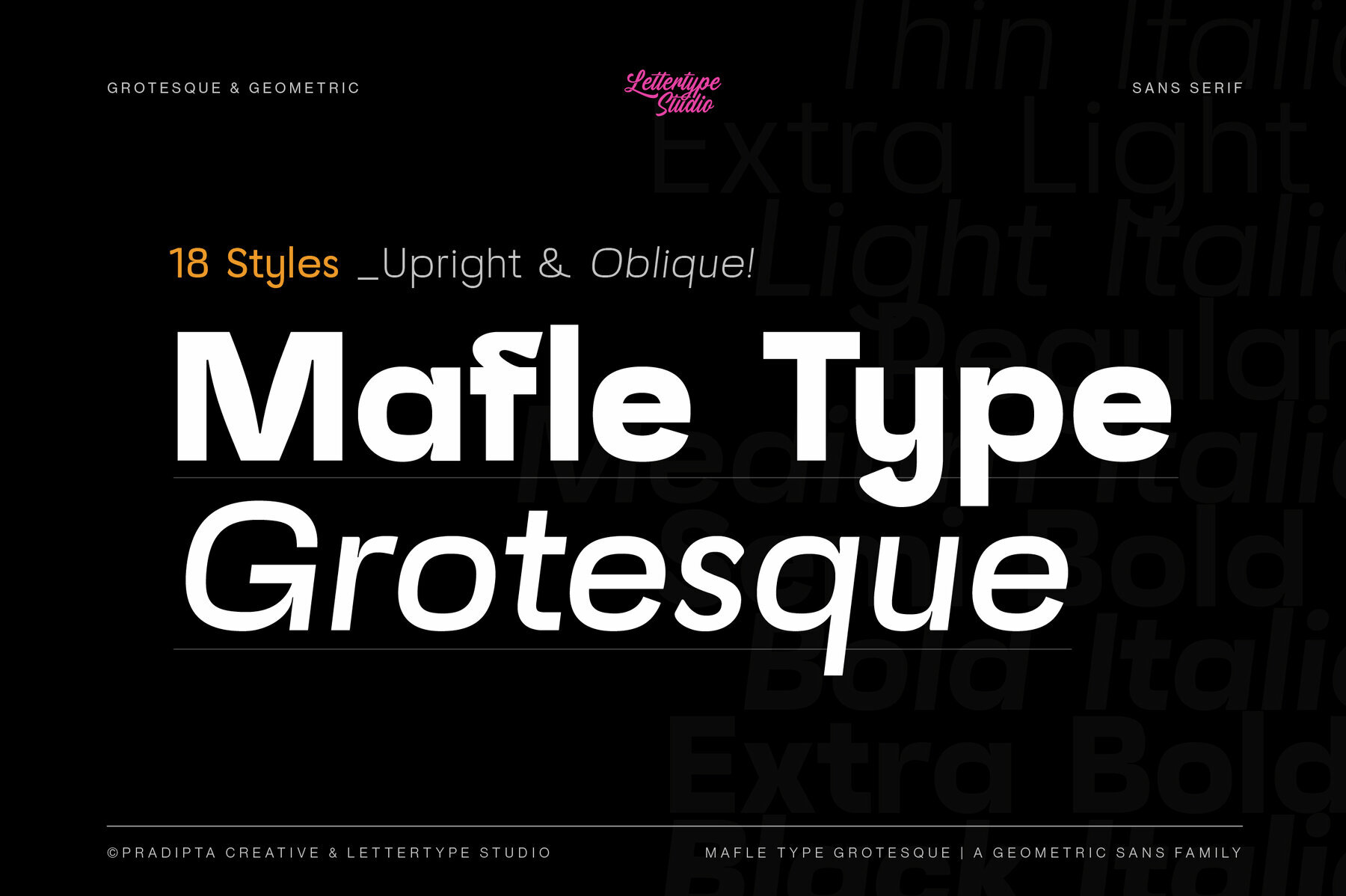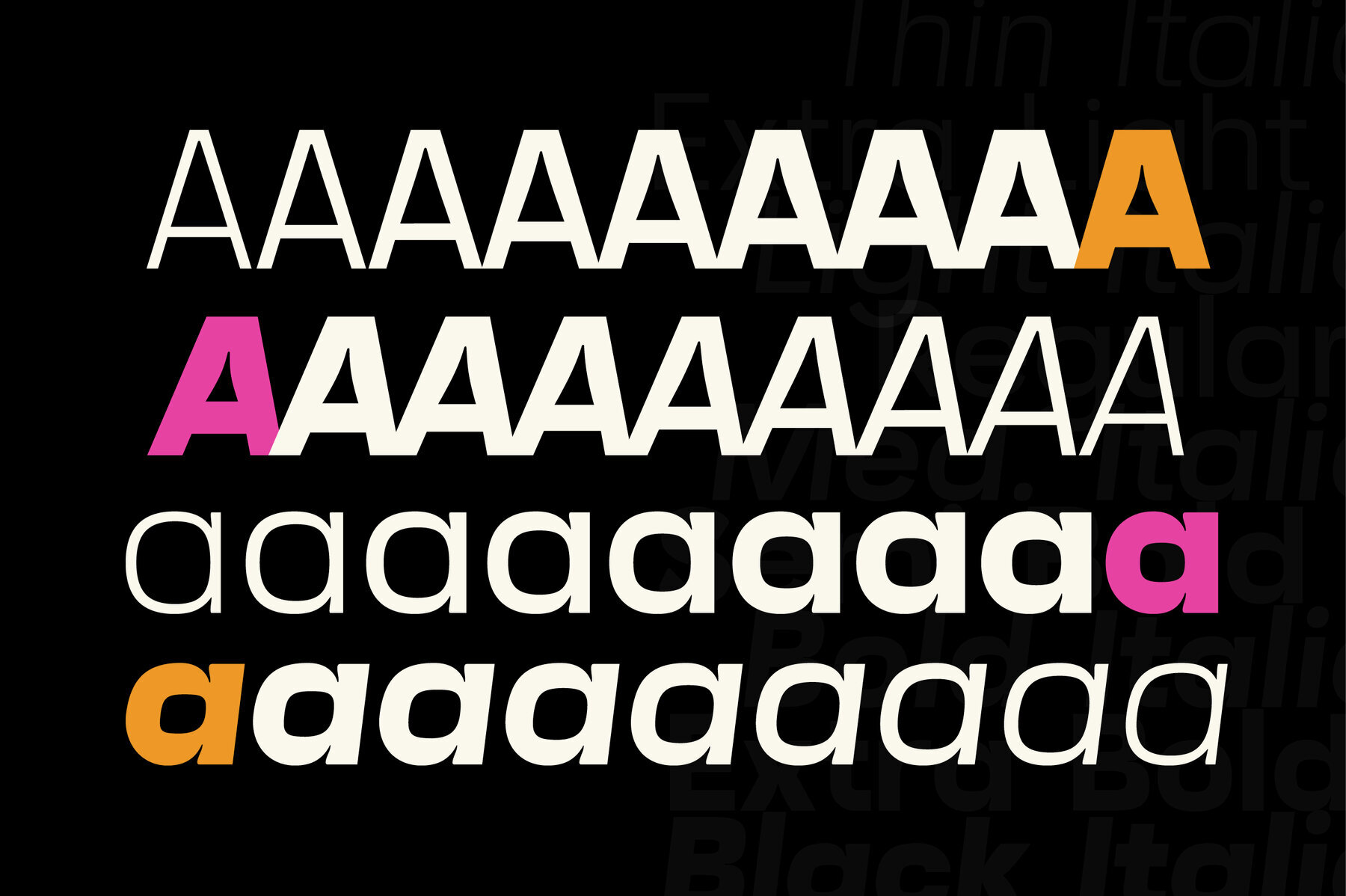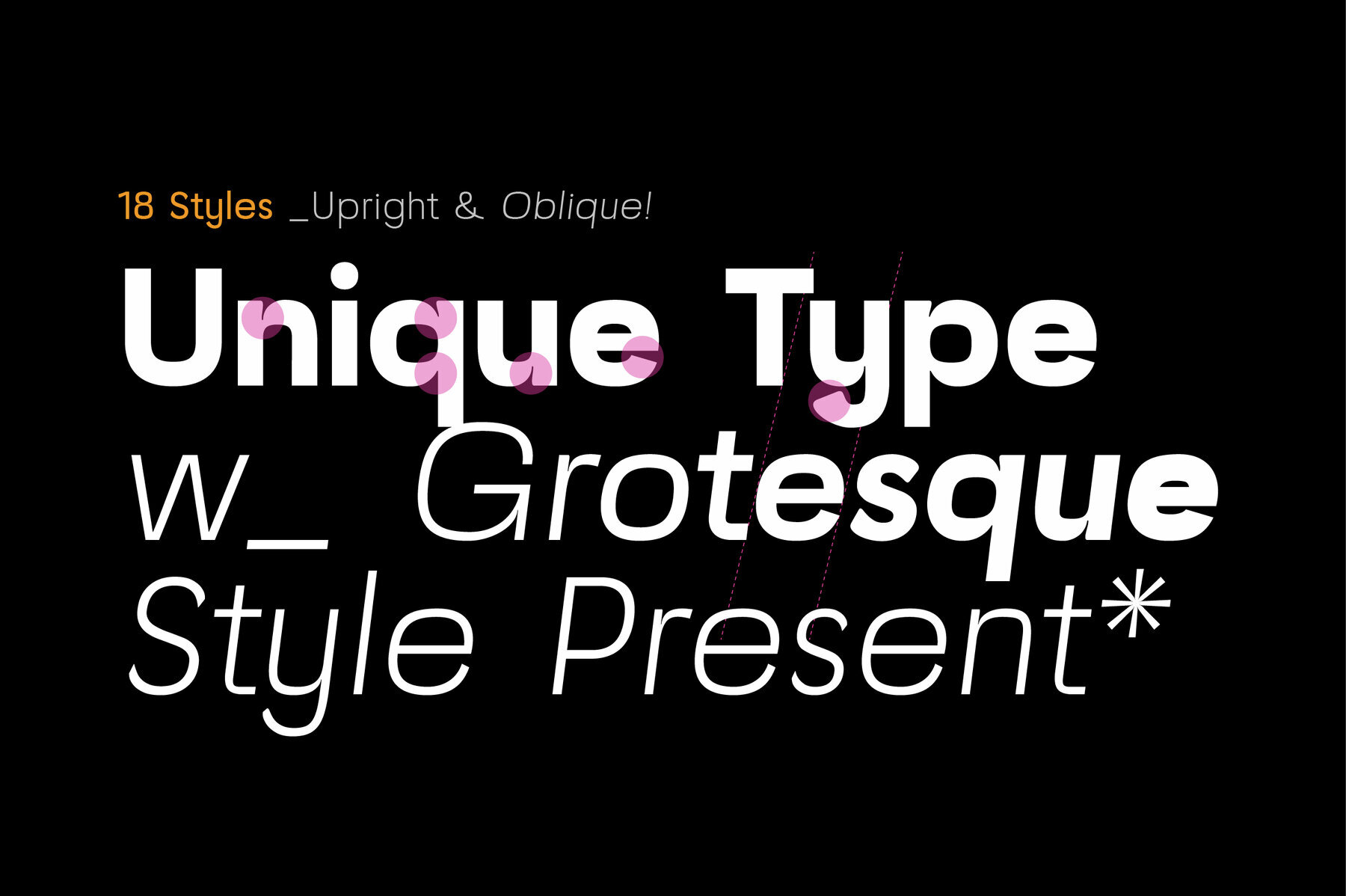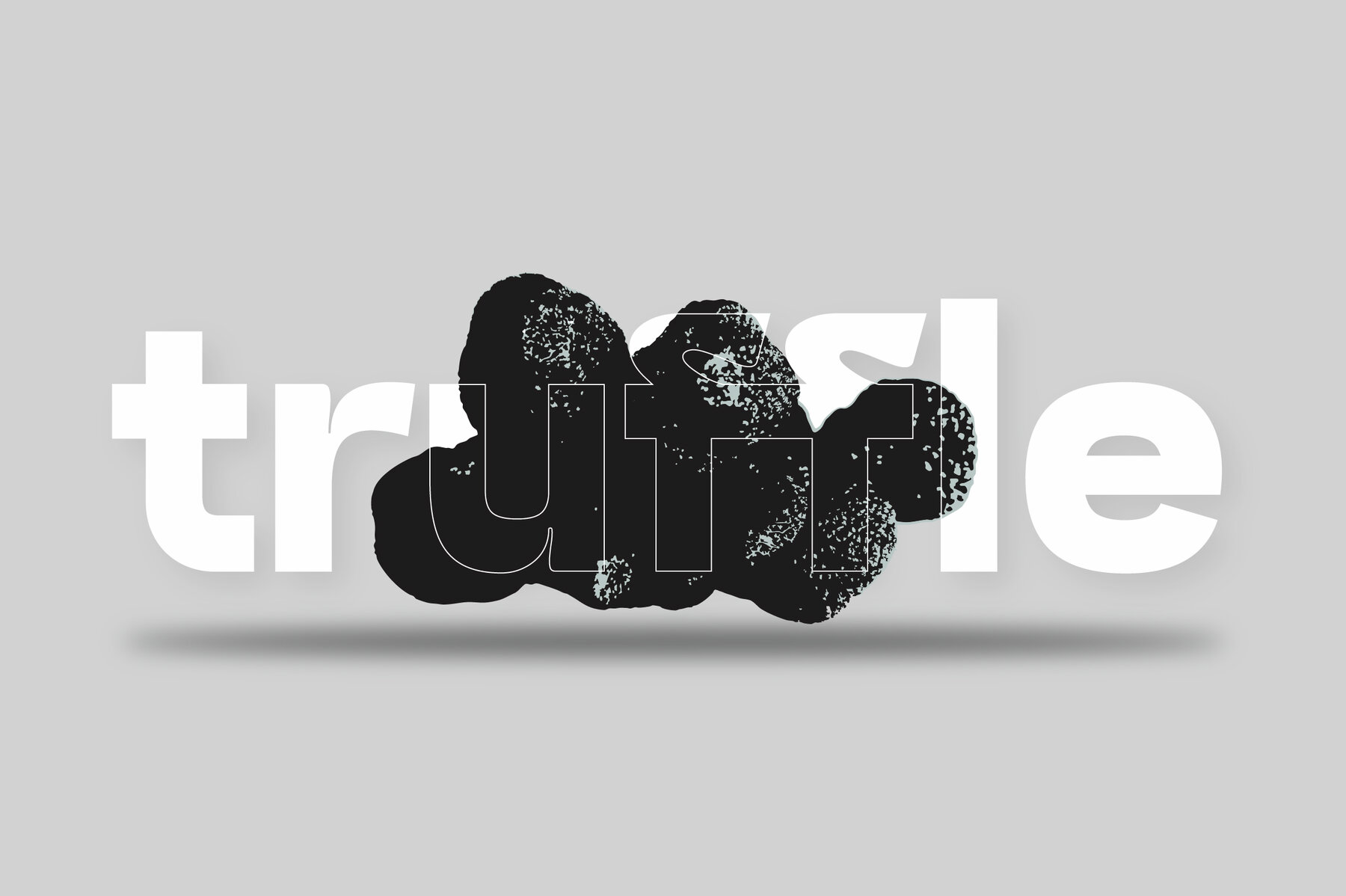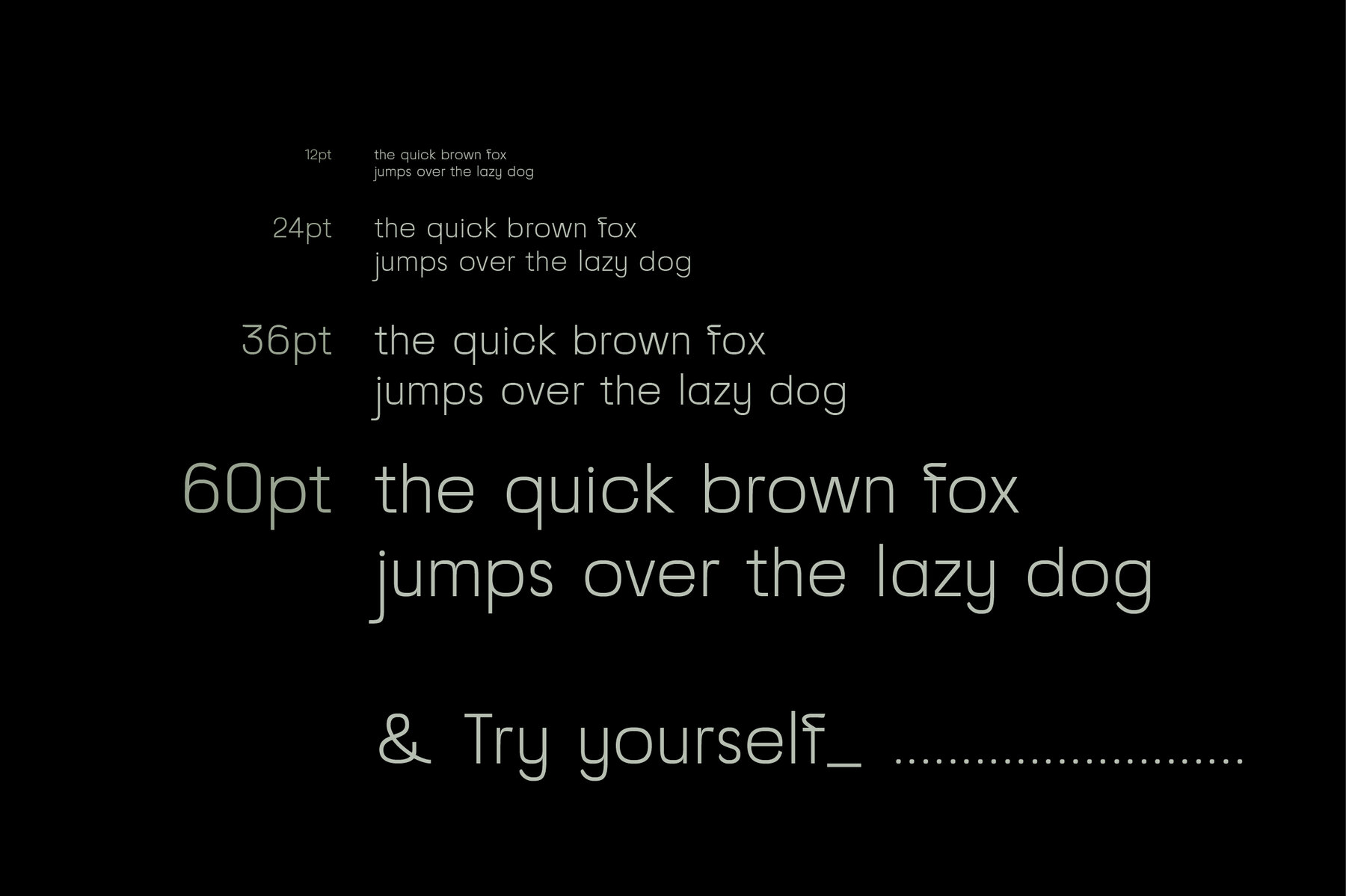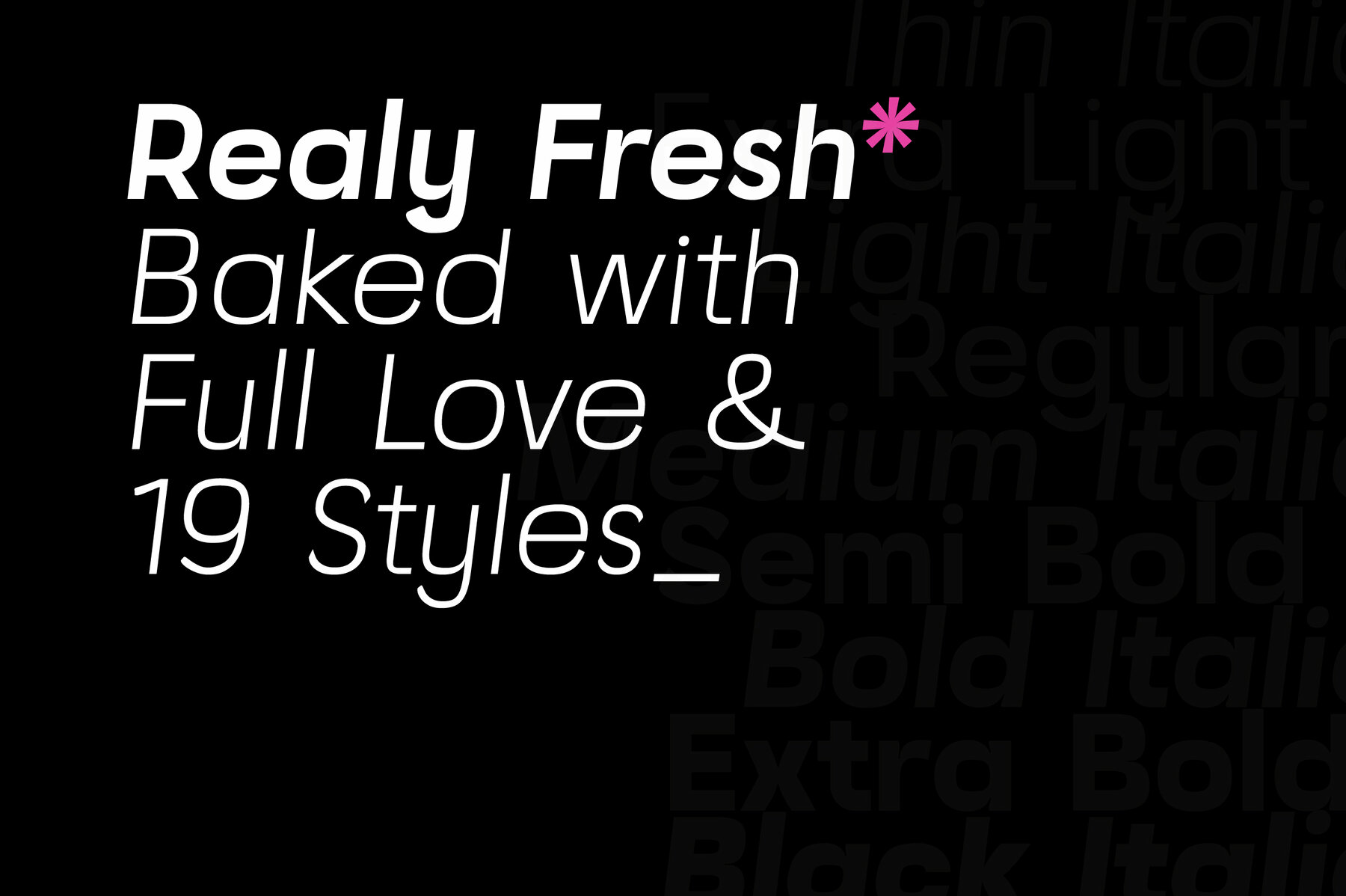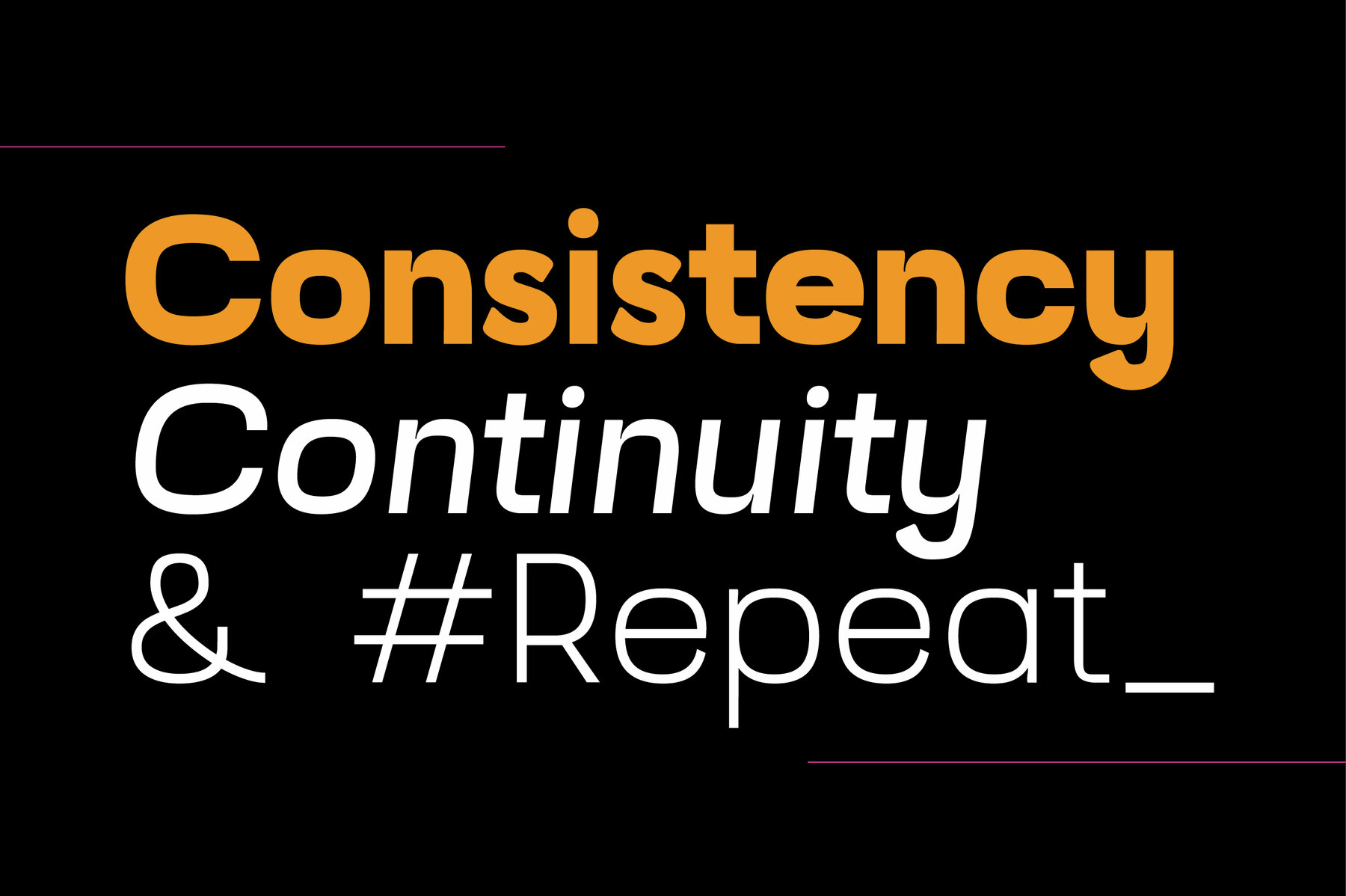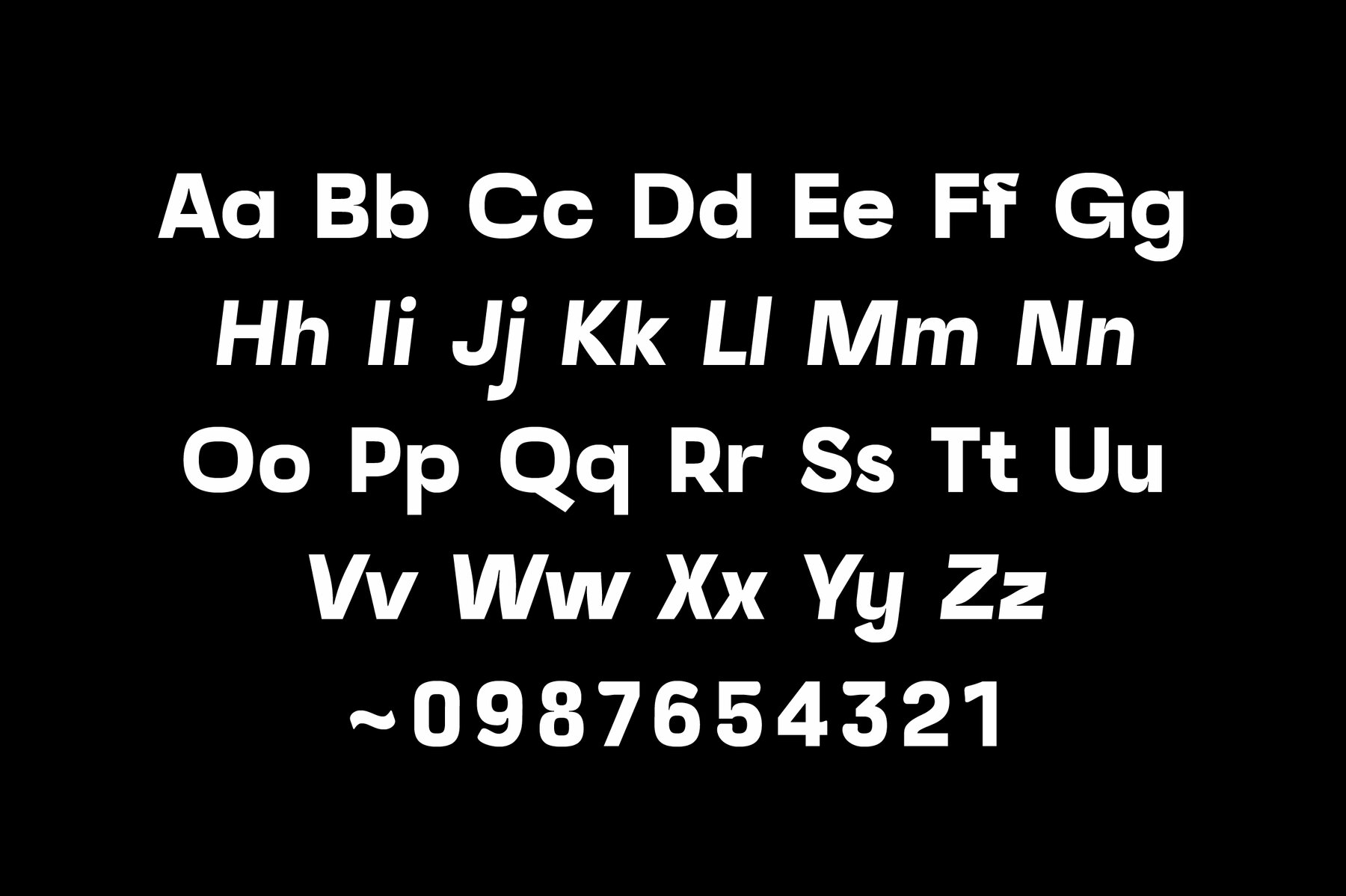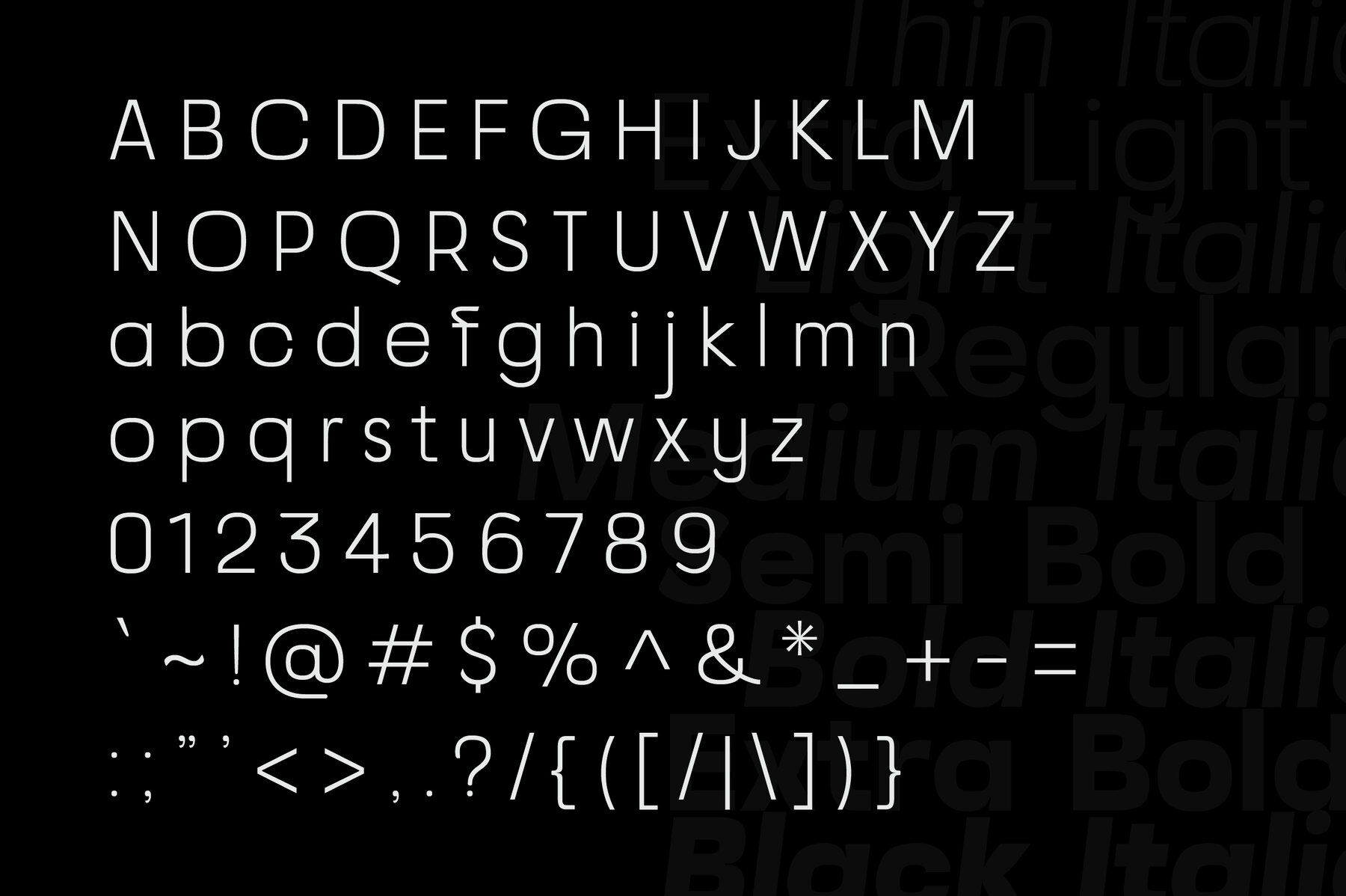
MafleType Grotesque Font
Blending the clean, modern grace of geometric forms with the enduring appeal of Grotesque principles, Mafle Type Grotesque is crafted for both readability and versatility. Its features, such as proportional width, flat apex, closed aperture, and straight-cut stroke ends, contribute to its contemporary and bold persona. This extensive collection encompasses 18 distinct weights from Thin to Heavy. The fonts are enriched with OpenType features, including Stylistic Alternates and a variety of figure variations. They support a broad spectrum of Latin languages, making them adaptable for global applications. These fonts are designed for a range of applications, including branding, web design, packaging, and editorial layouts, ensuring exceptional readability and aesthetic appeal. Choose from bold, impactful designs or sleek, minimalist options to enhance your creative projects.Mafle Type Grotesque: A Fusion of Geometric Elegance and Timeless Design